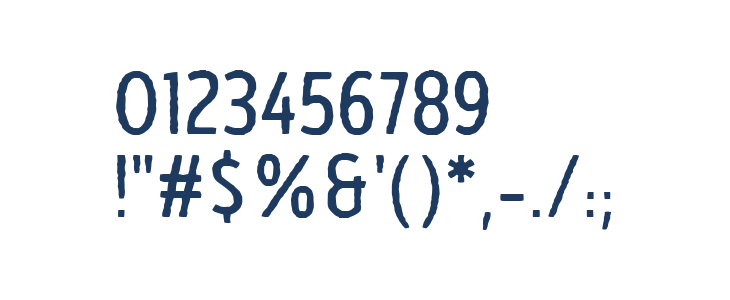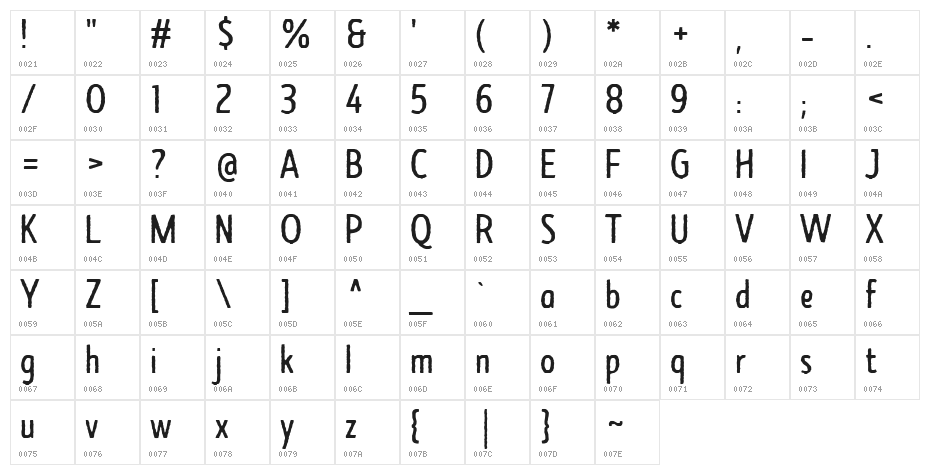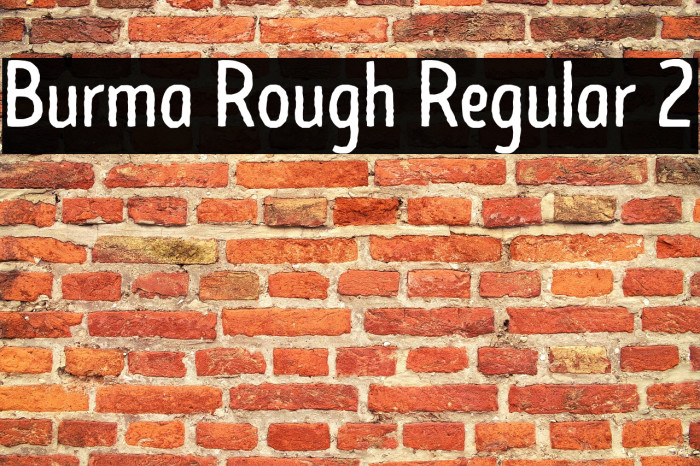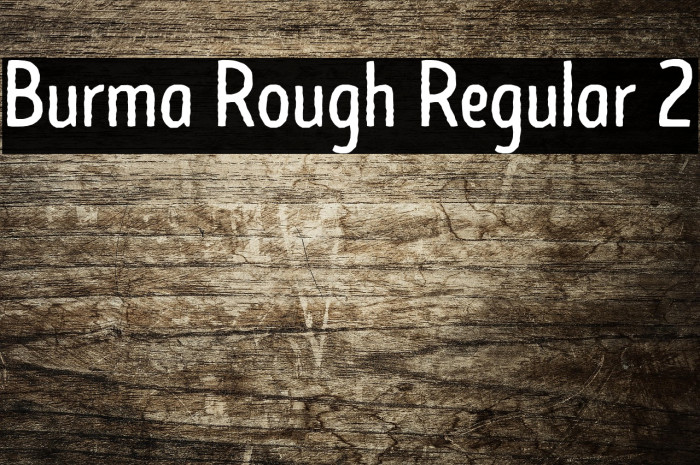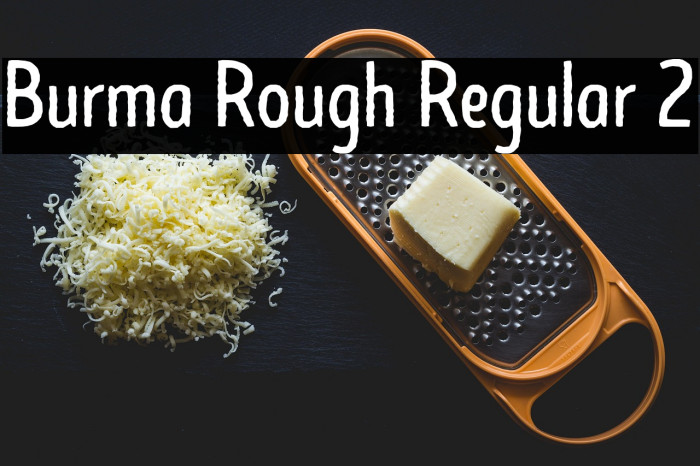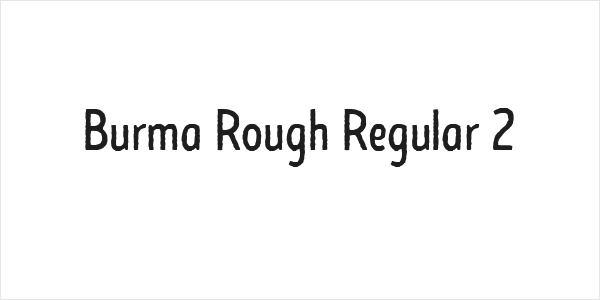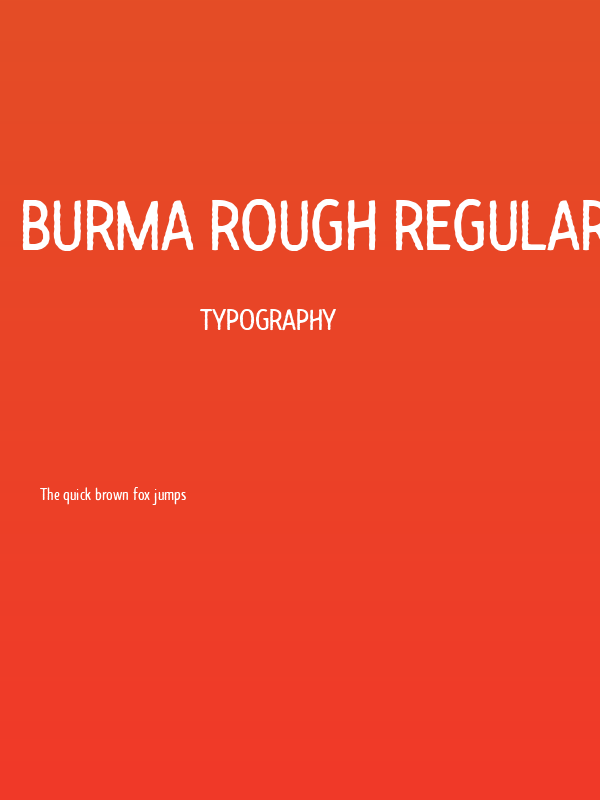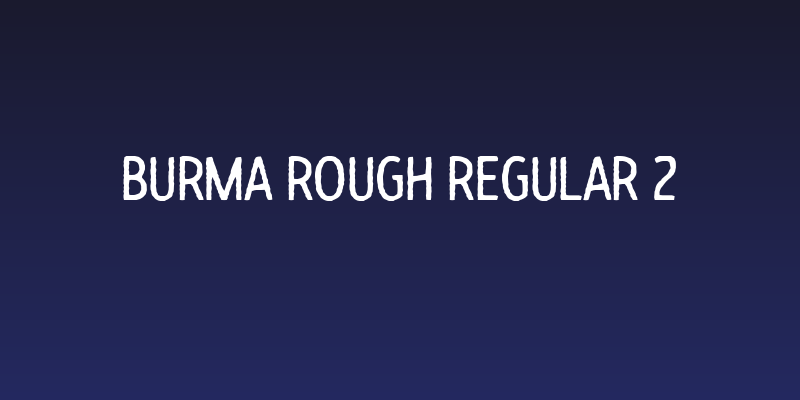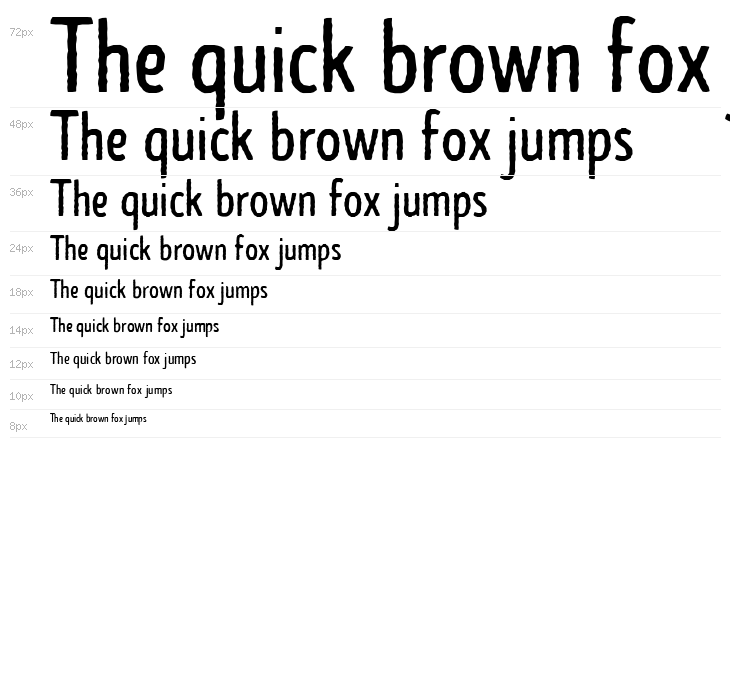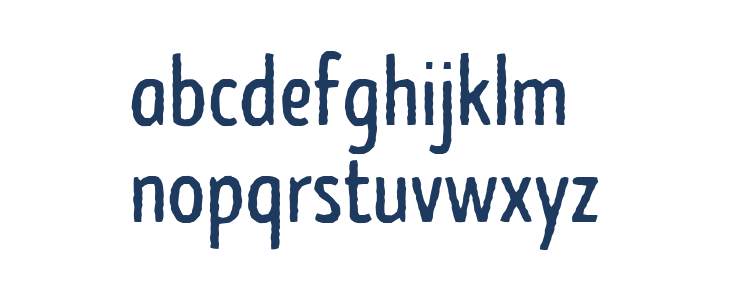
Burma Rough Regular 2 Font
Burma Rough Regular 2 Description
This font features a rough, hand-drawn aesthetic that gives it a unique, textured appearance. The characters are bold and slightly irregular, adding a sense of authenticity and personality. The uppercase and lowercase letters maintain a consistent style, with rounded edges and a slightly distressed look. The numerals and special characters follow the same design principles, ensuring a cohesive appearance across all glyphs. This font's rough texture and bold presence make it stand out, ideal for projects that require a touch of rustic charm or a handcrafted feel.